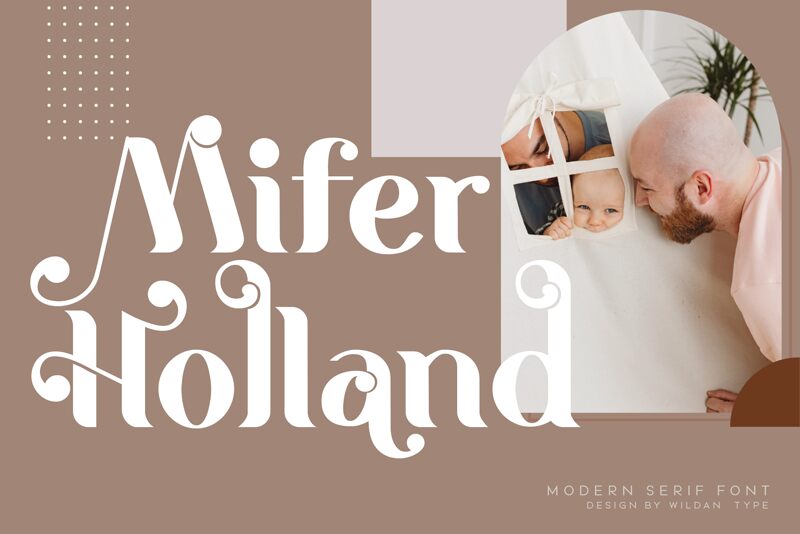
Mifer Holland Oblique
Mifer Holland Oblique font by Wildan Type is a free serif typeface with a graceful, italic sweep that feels both polished and dramatic. Its slanted forms, sharp curves, and slightly compressed rhythm give every word a sense of motion, like ink pulled swiftly across smooth paper. The letters feel tailored and refined, with just enough flair to suggest luxury without becoming fussy.
Using Mifer Holland Oblique, headlines and logos instantly gain a lush, editorial mood that shines on beauty branding, perfume packaging, fashion lookbooks, book covers, and wedding stationery. This free font also works beautifully for hero quotes, magazine mastheads, and elegant social graphics. Pair it with a clean sans from the Mifer Holland family or a neutral grotesk, and let Mifer Holland Oblique take the lead at larger sizes for maximum impact.